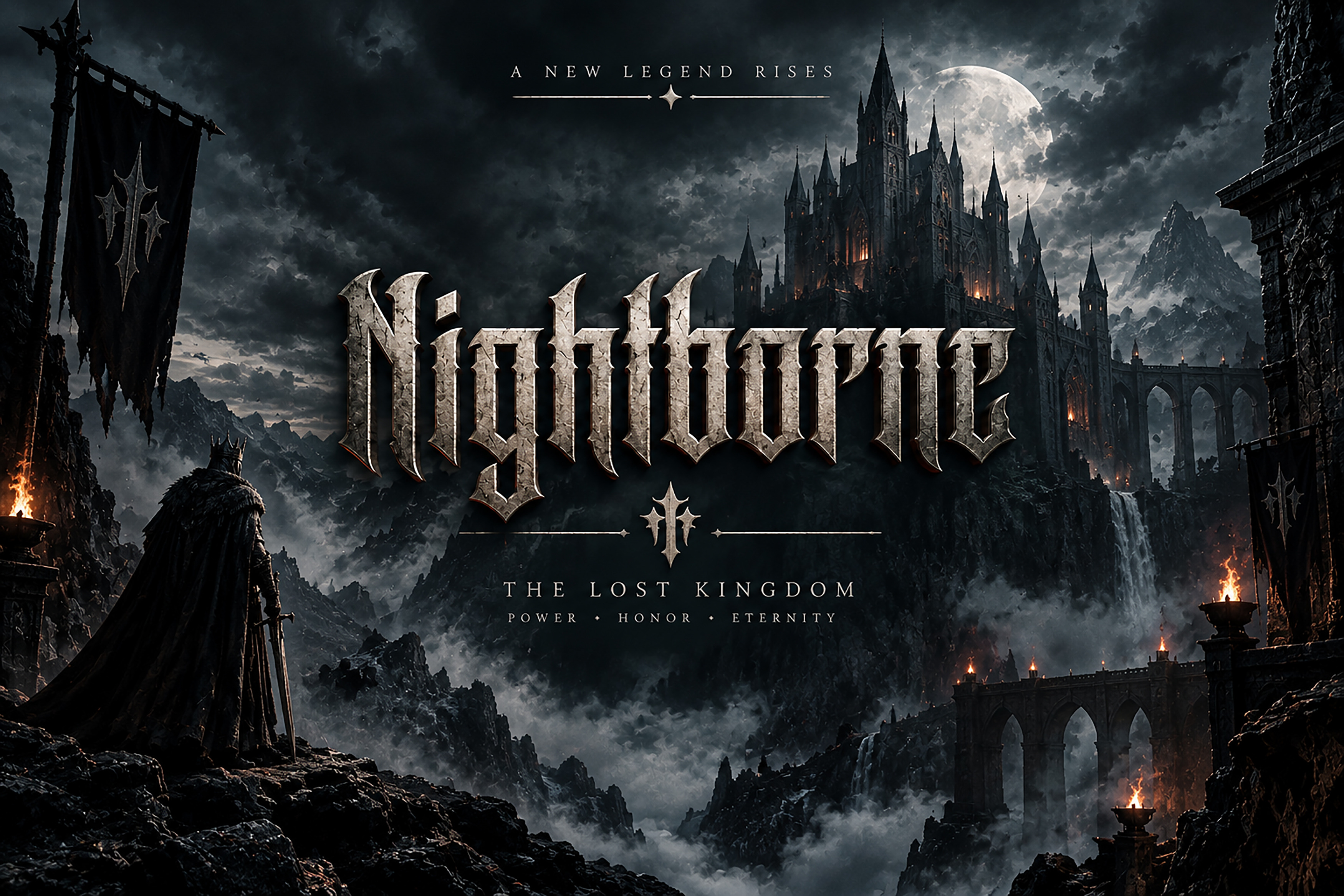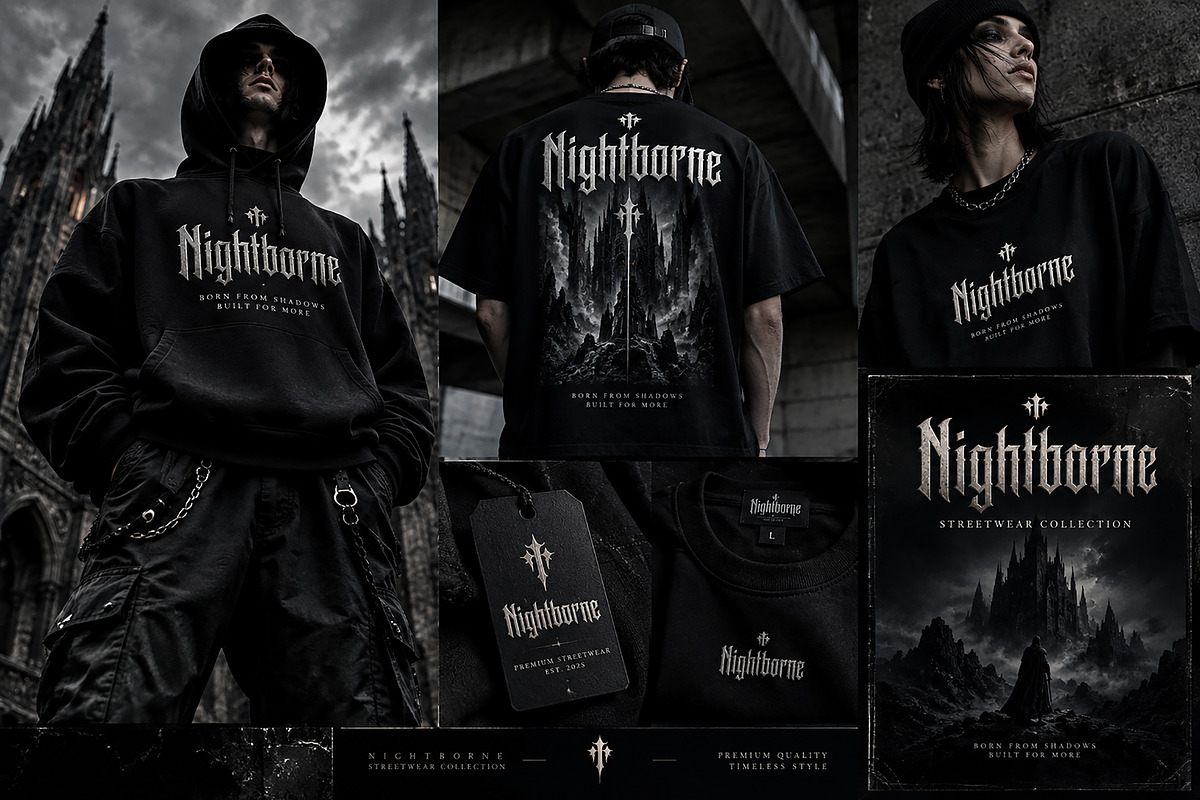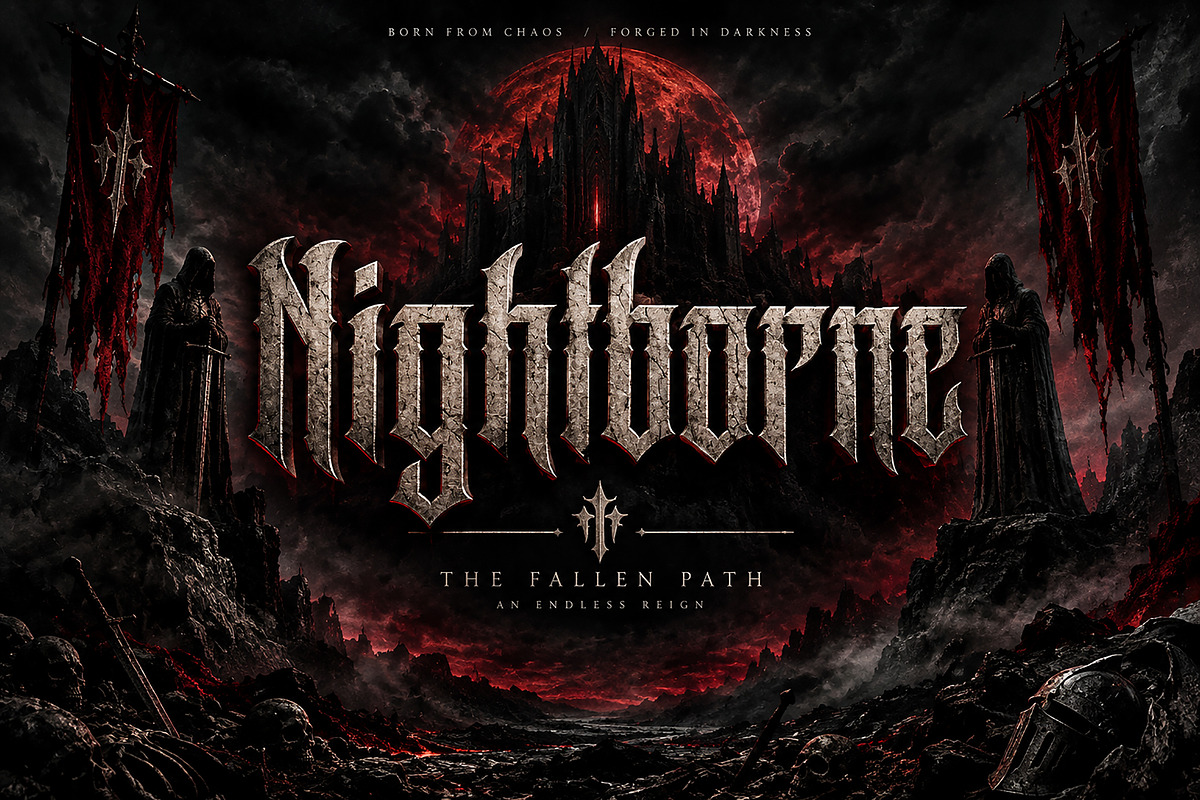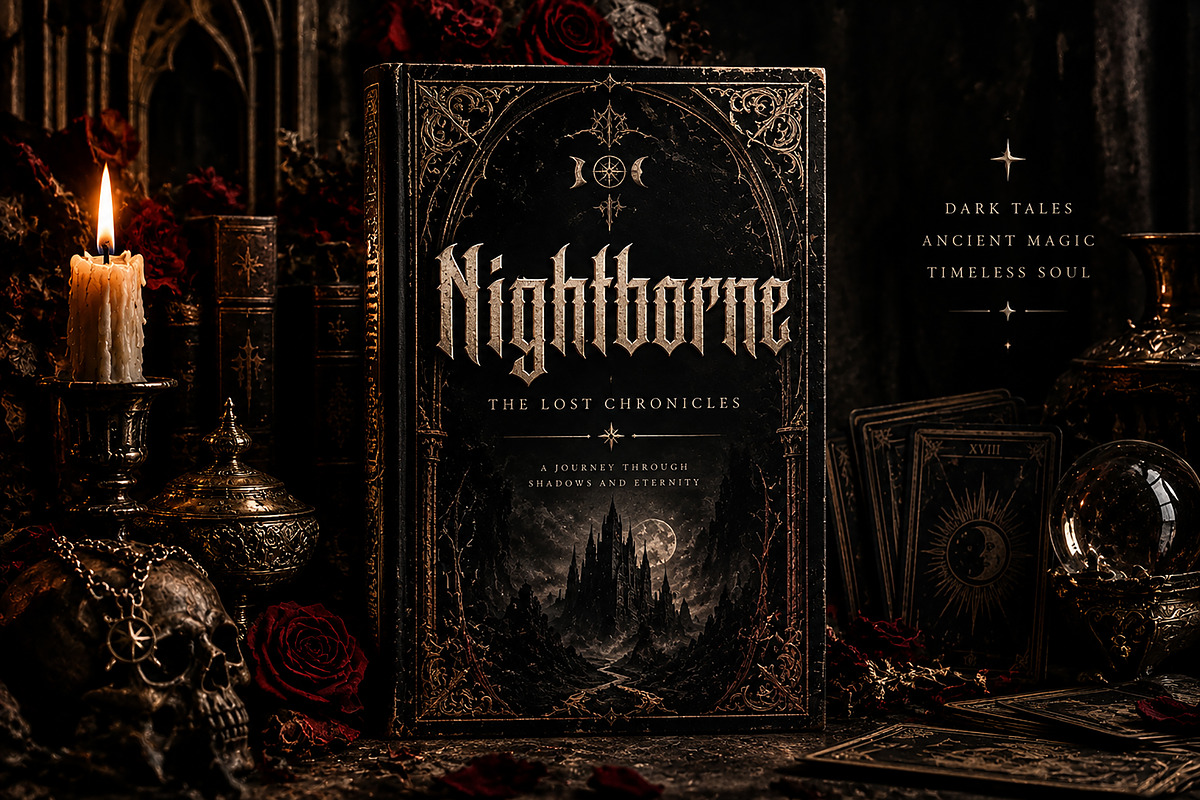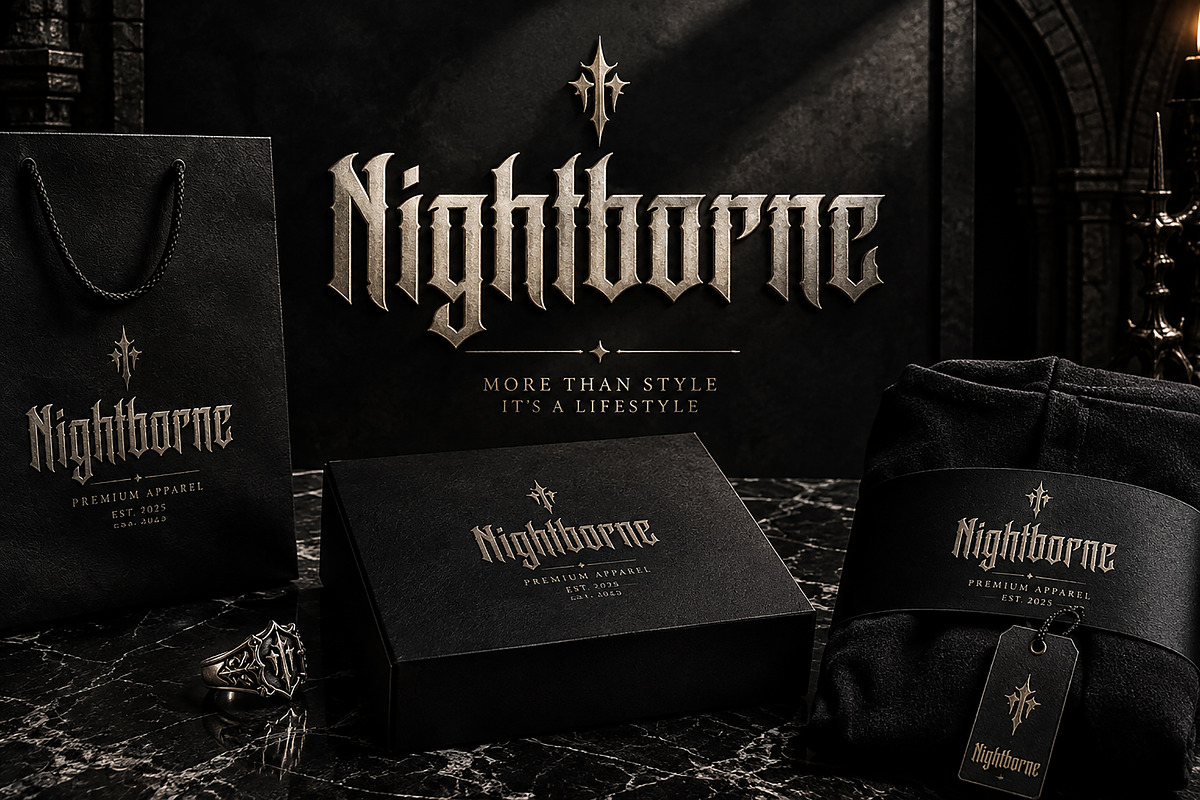
Nightborne — Gothic Blackletter Font
Nightborne is a powerful gothic blackletter display font designed for projects that demand a dark, mysterious, medieval, and commanding visual identity. Its sharp letterforms, dramatic strokes, and distinctive ornamental details create an intense vintage-meets-modern aesthetic that instantly captures attention.
Perfect for streetwear brands, heavy metal artwork, album covers, band logos, fantasy posters, horror designs, book covers, gaming graphics, tattoo-inspired artwork, merchandise, packaging, and gothic branding.
Nightborne works especially well for bold headlines, logos, titles, posters, apparel graphics, and other high-impact designs where typography needs to become the main visual element.
Gothic & Blackletter Branding
Heavy Metal & Rock Artwork
Streetwear & Apparel
Band Logos
Album Covers
Fantasy & Medieval Designs
Horror & Dark-Themed Projects
Book & Magazine Covers
Gaming & RPG Graphics
Posters & Merchandise
Tattoo-Inspired Designs
Packaging & Product Branding
Creative Editorial Projects
Font Name: Nightborne
Style: Gothic / Blackletter / Dark Display
Bring a dark, powerful, and unforgettable character to your next creative project with Nightborne.